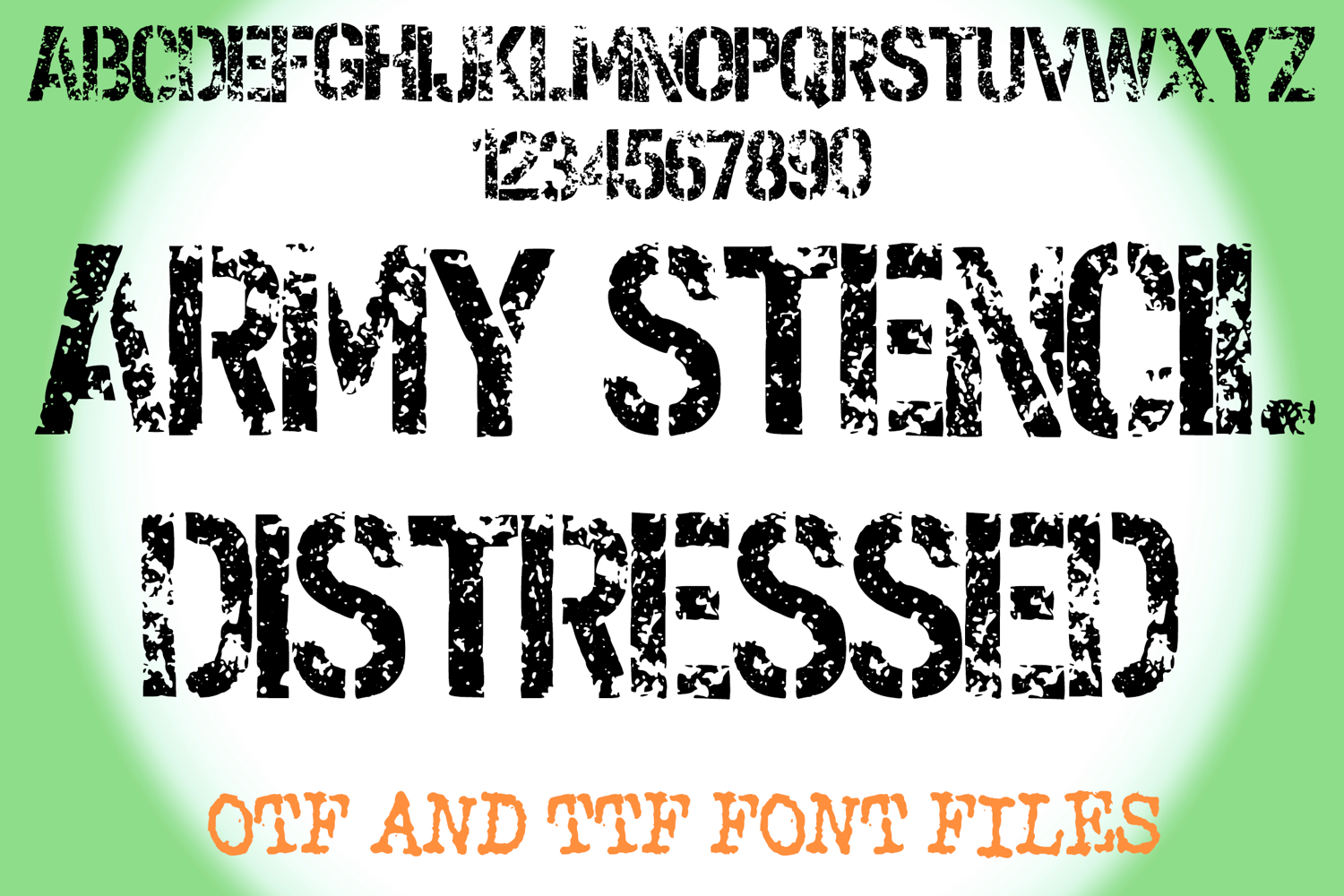
Army Stencil Distressed Lettering ABC Text Font Alphabet OTF Type IllustrationÂ
A distressed style font where you can create your own words and colour them to your vision!